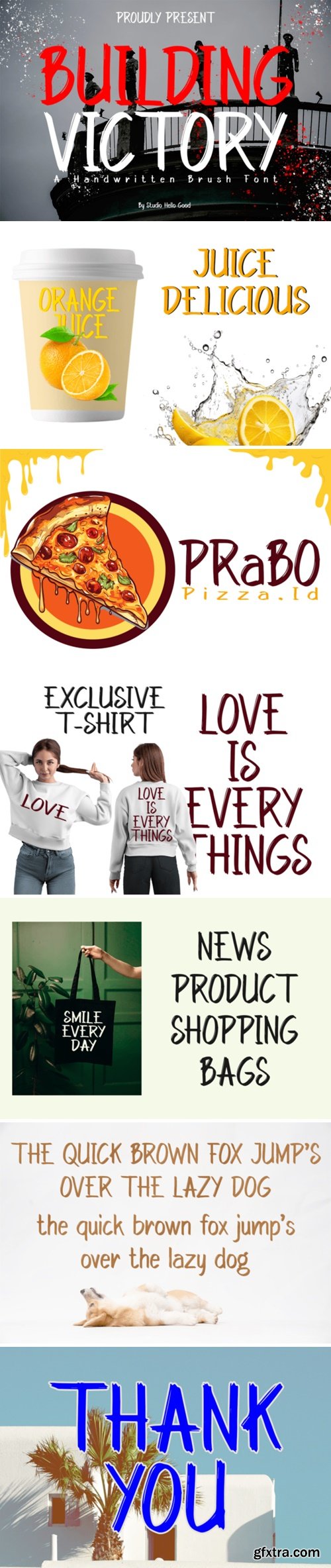
Building Victory is a raw and visceral typographic creation, tailor-made for the gritty realms of music metal and horror movies. Its rugged, jagged letterforms seem as if they were etched into steel by the claws of a beast, exuding an aura of primal aggression and unyielding power. Each letter is imbued with an industrial edge, featuring sharp angles and bold strokes that evoke the feeling of being forged in the fires of chaos. Its distorted and chaotic appearance adds a sense of foreboding, perfectly suited for conveying the macabre and the sinister.